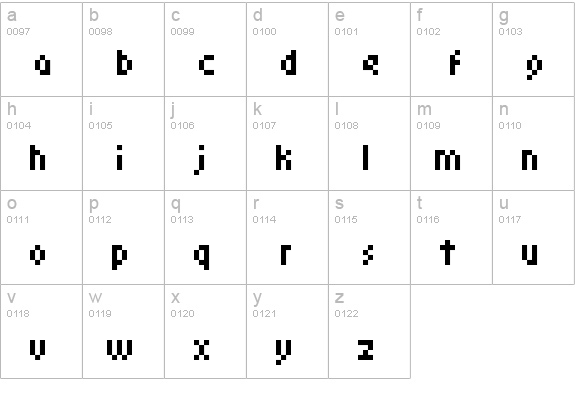
monoeger 05_56 Font Details
Monoeger 05_56 font is a sleek and modern typeface that exudes sophistication and elegance. Its clean lines and geometric shapes make it perfect for a wide range of design projects, from branding to editorial design. The font features a unique monospaced design that gives it a contemporary edge, making it stand out from the crowd. What sets Monoeger 05_56 font apart is its versatility and readability. Whether used in print or digital media, this font maintains its clarity and legibility, making it an excellent choice for both large blocks of text and eye-catching headlines. Best of all, Monoeger 05_56 font is available for free download at FontsMarket.com. This means you can easily access this stylish font and incorporate it into your designs without any cost. Don't miss out on this fantastic opportunity to enhance your projects with the modern and sophisticated Monoeger 05_56 font.